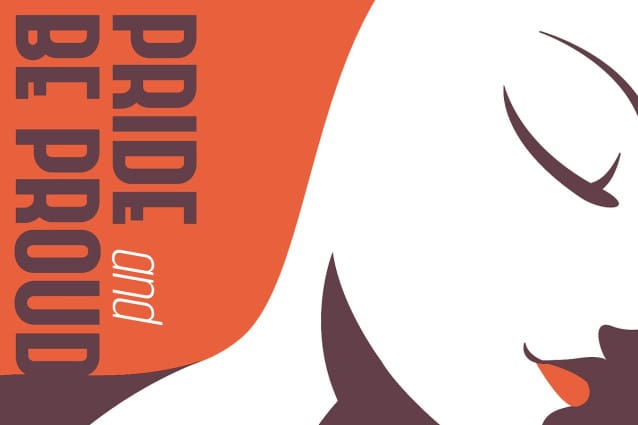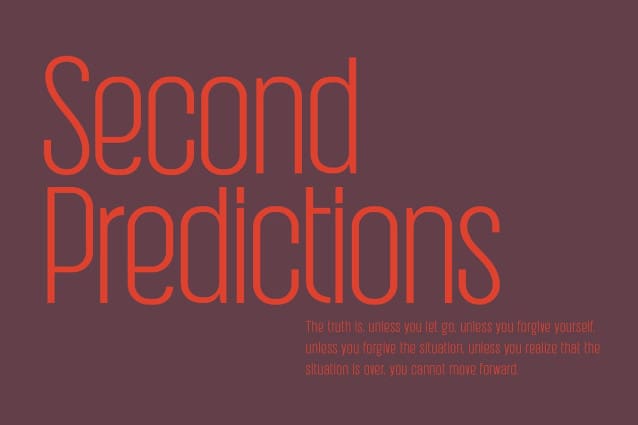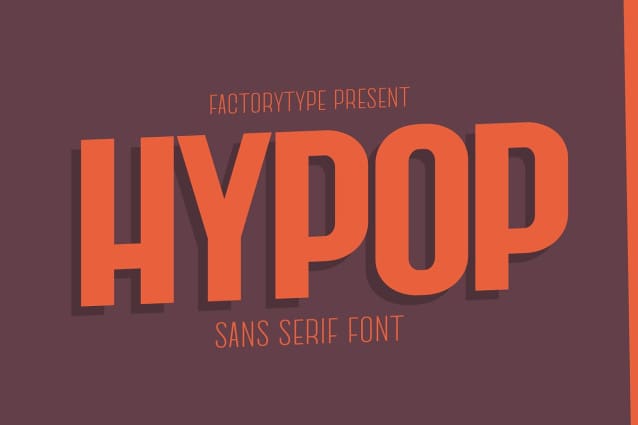
Hypop Font
Hypop Font is a strong and condensed sans serif font family with a nostalgic vibe. Combining retro and minimalist elements resulted in an elegant design. The different weights give you a lot of options when it comes to choosing the right typographic color for your project.